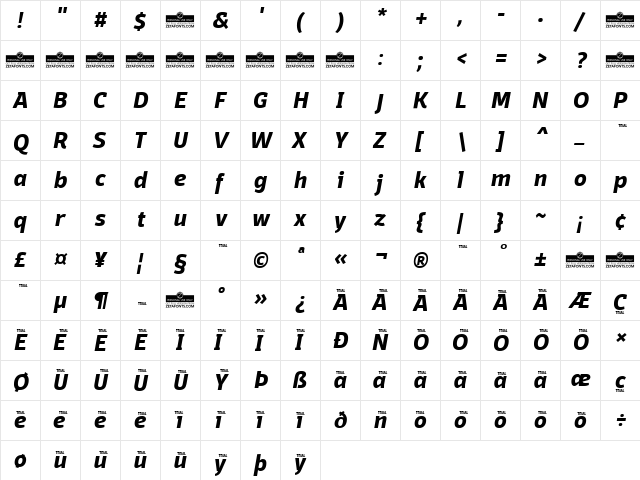
Domotika Trial Bold Italic Font Preview
| Foundry | Studio Kmzero |
| Designer | Cosimo Lorenzo Pancini |
Design Context for Domotika Trial Typeface
Domotika Trial offers clean, dependable letterforms without strong stylistic allegiance, making it a practical choice for designers who need flexibility. The dynamic lean of this cut emphasises speed and emphasis in any layout. The heavy weight commands attention and anchors typographic hierarchies.
Pro Tip: Try Domotika Trial for annotation and caption copy alongside an upright companion — the contrast in angle creates a dynamic but ordered typographic system.